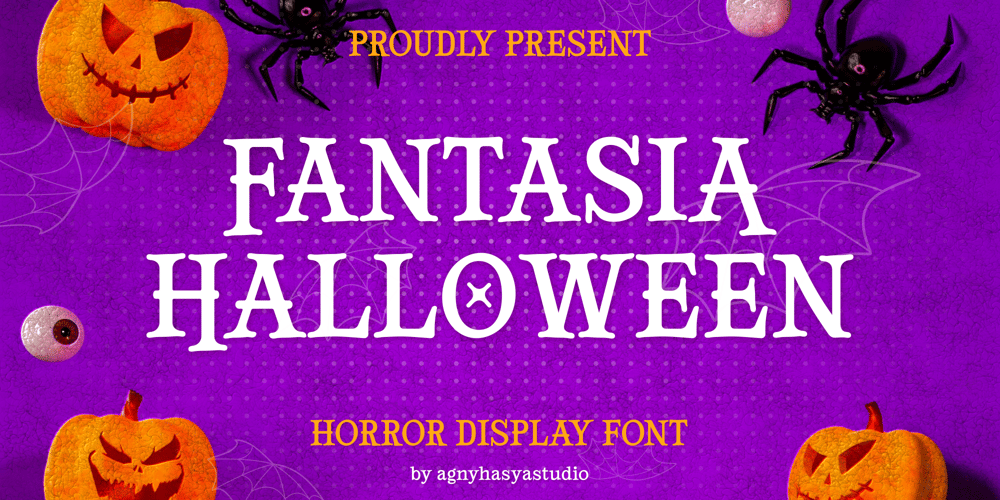
Fantasia Halloween Font Family was designed by Firman Maulana and published by Agny Hasya Studio. Fantasia Halloween contains 2 styles and family package options. Fantasia Halloween Is a Display Typeface With Horror, Fun, and Playful Vibes. Come In 2 (Two) Styles (Regular and Slant) And Is Created With Some Alternate and Ligature.Featured with Uppercase and lowercase, Numeral and punctuation, Multilingual Support, and Opentype FeaturesPerfect for Your Design Projects Like Advertising, Branding, Product Designs, Magazine Designs, Book/Cover Title Designs, Art Quotes, Special Events, Labels, Product Packaging, and More.Have Fun Creating & Designing With Fantasia HalloweenThank You!agnyhasyastudio